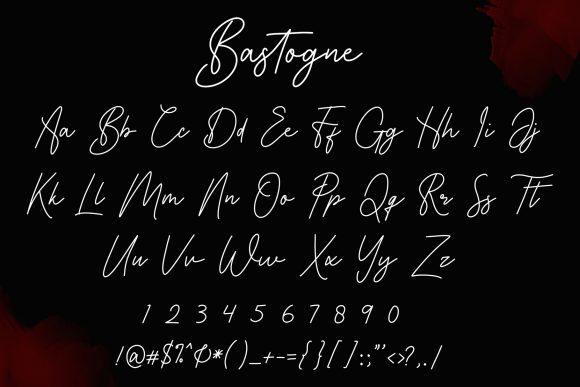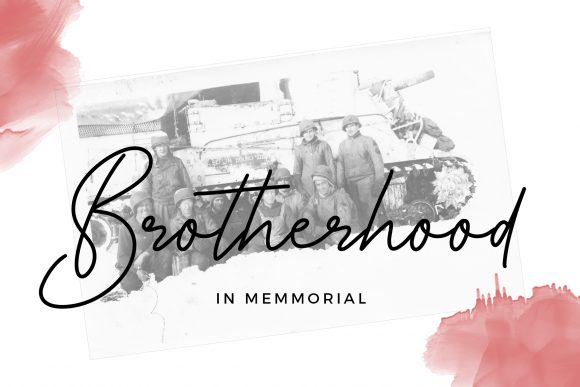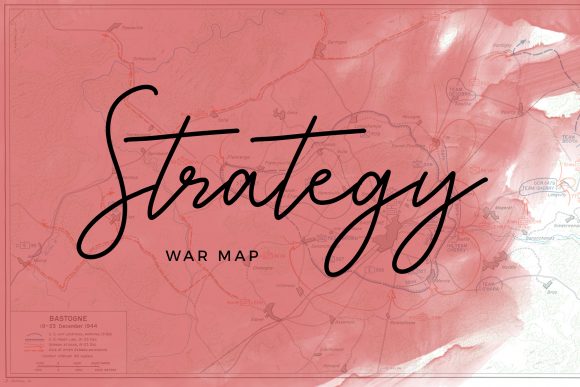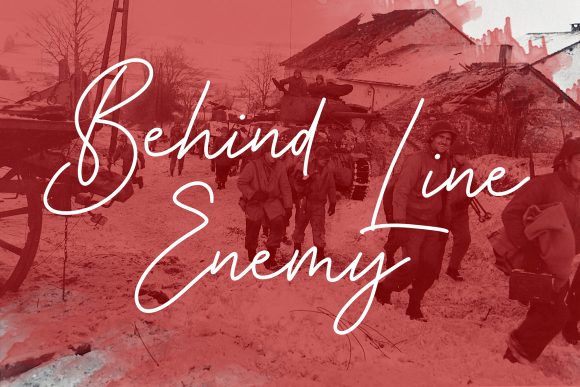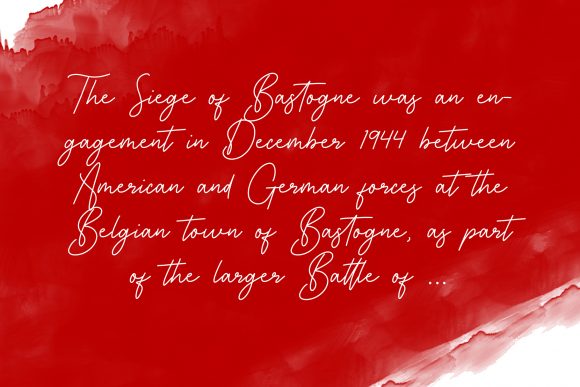
Bastogne Font: Elevate Your Design with a Touch of Luxury
Bastogne is a beautiful light handwritten font with a unique feel and a stunning impact. It will add a luxury spark to any design project that you wish to create! In this article, we’ll dive into the world of Bastogne Font, exploring its features, benefits, and uses, as well as provide tips and inspiration for designers and crafters looking to elevate their work with this gorgeous font.
The Story Behind Bastogne Font
Bastogne Font is a carefully crafted typeface designed to bring a touch of elegance and sophistication to any design project. Its light, handwritten feel is perfect for creating luxurious and high-end designs that demand attention. The font’s unique feel and stunning impact make it an excellent choice for designers looking to add a bit of personality to their work.
Key Features of Bastogne Font
- Light Handwritten Feel: Bastogne Font boasts a delicate, handwritten feel that’s perfect for creating elegant and refined designs.
- Unique Character: The font’s unique character and charm make it stand out from other typefaces, ensuring your designs will be noticed.
- Luxury Appeal: Bastogne Font is designed to add a touch of luxury to any design project, making it perfect for high-end branding, packaging, and marketing materials.
- Versatility: This font is incredibly versatile, suitable for a wide range of design projects, from digital to print.
Benefits of Using Bastogne Font
So, why choose Bastogne Font for your next design project? Here are just a few benefits of using this stunning font:
- Adds Elegance and Sophistication: Bastogne Font brings a level of elegance and sophistication to any design project, elevating your work to new heights.
- Enhances Brand Identity: The font’s unique character and luxury appeal make it an excellent choice for creating a strong brand identity that stands out from the competition.
- Perfect for Creative Projects: Bastogne Font is ideal for designers, crafters, and artists looking to add a touch of personality and whimsy to their work.
Using Bastogne Font in Your Design Projects
So, how can you use Bastogne Font in your design projects? Here are a few ideas to get you started:
- Branding and Packaging: Use Bastogne Font to create luxurious branding and packaging materials that showcase your brand’s personality and style.
- Digital Marketing: Add a touch of elegance to your digital marketing materials, including social media graphics, email headers, and website titles.
- Stationery and Invitations: Create beautiful stationery and invitations that showcase your personal style and add a touch of luxury to any occasion.
- Crafting and Scrapbooking: Use Bastogne Font to add a touch of personality and whimsy to your crafting and scrapbooking projects.
Tips and Tricks for Working with Bastogne Font
Here are a few tips and tricks to help you get the most out of Bastogne Font:
- Experiment with Font Sizes: Play around with different font sizes to create visual interest and hierarchy in your designs.
- Pair with Other Fonts: Combine Bastogne Font with other fonts to create a unique and eye-catching typography combination.
- Use in Combination with Images: Pair Bastogne Font with beautiful images to create stunning visual compositions.
Inspiration and Resources
Need inspiration or resources to help you get started with Bastogne Font? Here are a few ideas:
- Design Blogs and Websites: Follow design blogs and websites for inspiration, tutorials, and resources on working with Bastogne Font.
- Social Media: Join design communities on social media to connect with other designers, share your work, and get feedback.
- Graphic Design Courses: Take online courses or workshops to learn more about typography, design principles, and working with Bastogne Font.
Bastogne Font is a beautiful light handwritten font with a unique feel and a stunning impact. With its luxury appeal, versatility, and elegance, it’s the perfect choice for designers and crafters looking to elevate their work. Whether you’re creating branding and packaging materials, digital marketing assets, or crafting and scrapbooking projects, Bastogne Font is sure to add a touch of sophistication and whimsy to your designs.